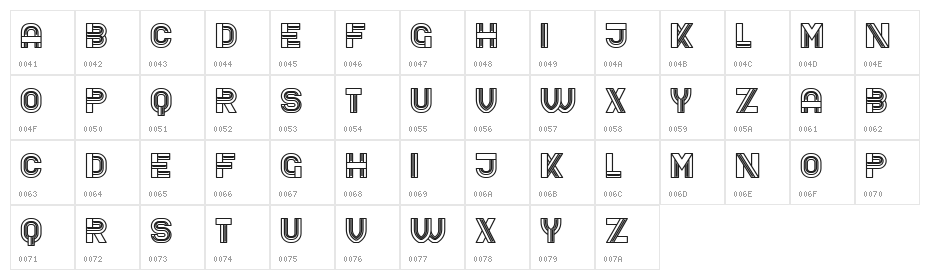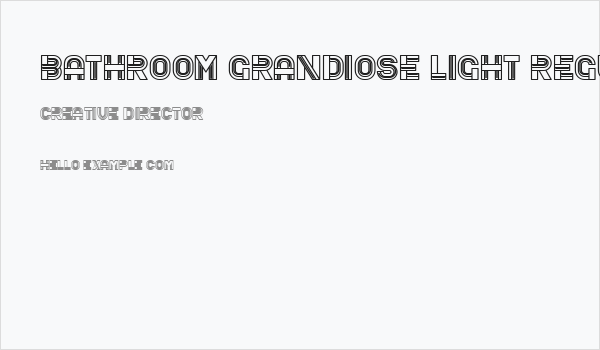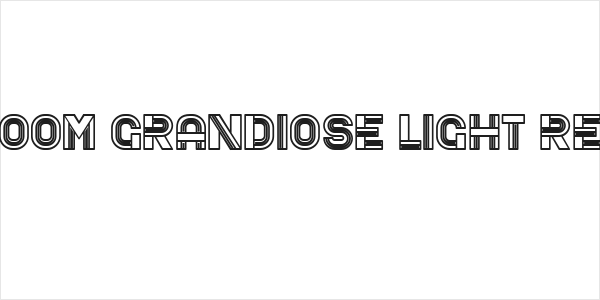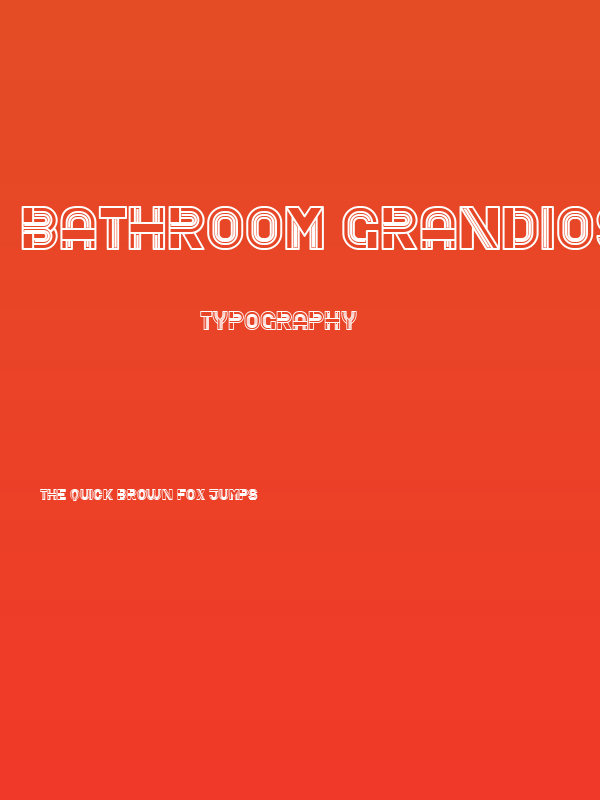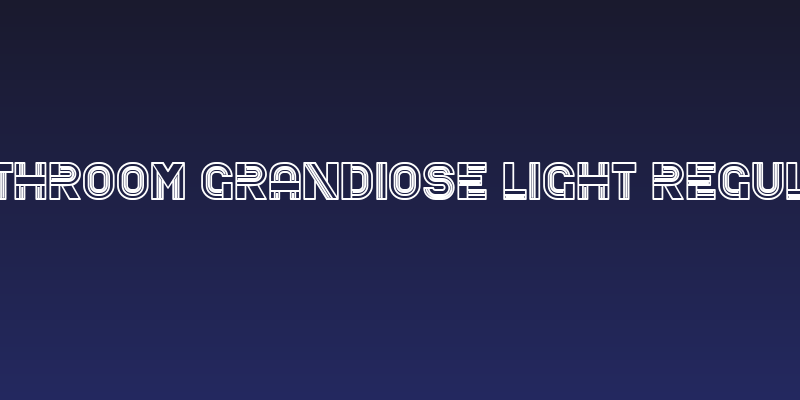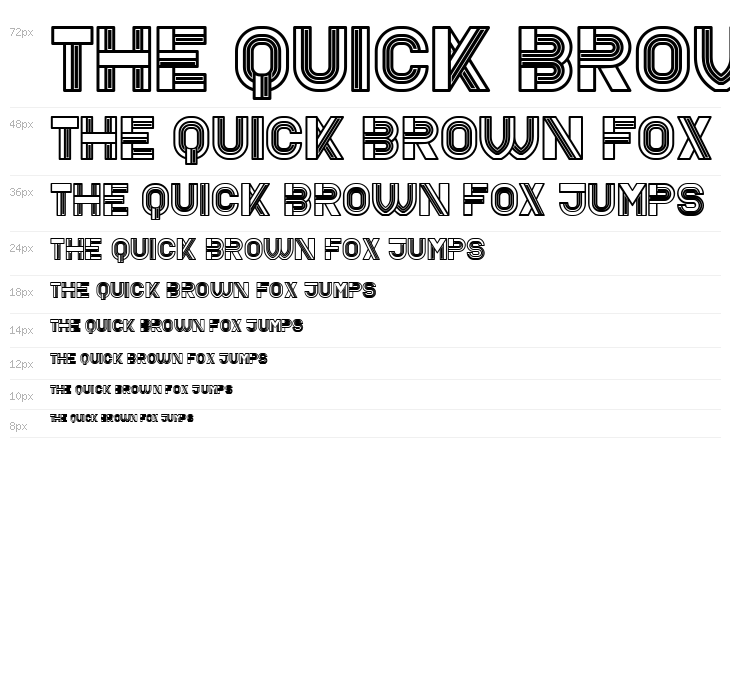
Bathroom Grandiose Light Regular Font
Bathroom Grandiose Light Regular Description
This font features a bold and decorative style with a unique geometric pattern. Each character is outlined with multiple lines, creating a layered and dimensional effect. The uppercase letters are uniform in height, with consistent spacing that enhances readability despite the intricate design. The font's structure is modern and artistic, making it suitable for eye-catching displays. Its distinct appearance is ideal for projects that require a strong visual impact, such as posters, logos, or branding materials. The font's design is both contemporary and versatile, allowing it to stand out in various creative applications.
| Proposed Projects | Ideal for posters, logos, branding materials, and any project needing a strong visual impact. |